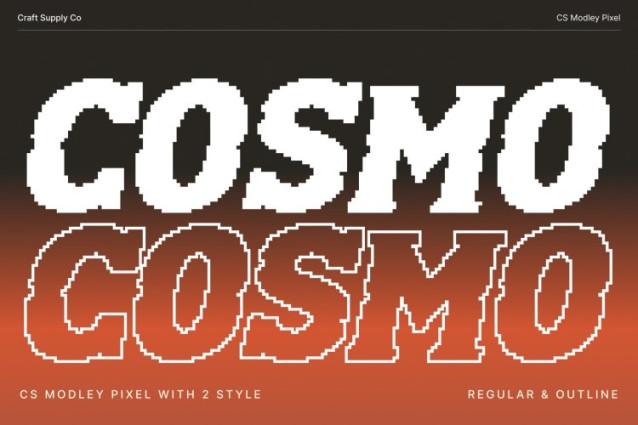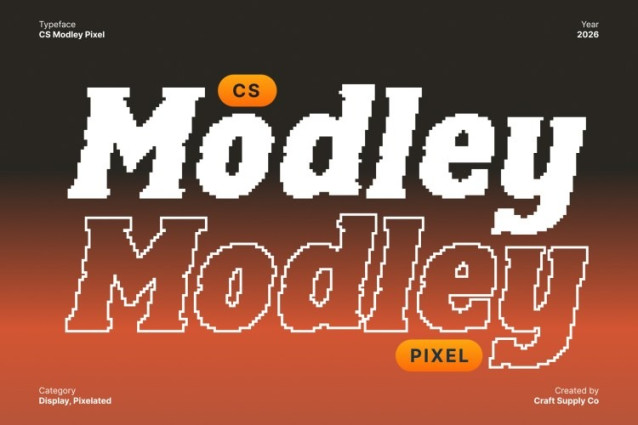
CS Modley Pixel Font This is a rugged western display font inspired by the bold lettering of frontier towns, vintage saloons, and classic cowboy signage. It captures the raw spirit of the Wild West while blending in a retro digital attitude, creating a font that feels tough, confident, and visually striking.
Slab Serifs with Pixelated Structure
Built with strong slab serifs and pixel-based shapes, this font delivers a solid and grounded appearance. The blocky construction enhances readability while the pixel detailing adds a nostalgic old-technology feel, evoking early digital displays and retro screen typography.
Rugged Personality with Retro-Digital Edge
This font balances traditional western toughness with a playful digital twist. Its rough character and pixel texture give designs a bold personality, making it perfect for projects that want to mix vintage heritage with modern retro aesthetics.
Perfect for Posters, Branding, and Old-Digital Themes
Ideal for posters, logos, branding, packaging, merchandise, games, and old-digital or western-themed visuals, this font stands out with confidence and character. Whether for cowboy-inspired designs or retro-tech concepts, this font delivers impact, nostalgia, and unforgettable style.